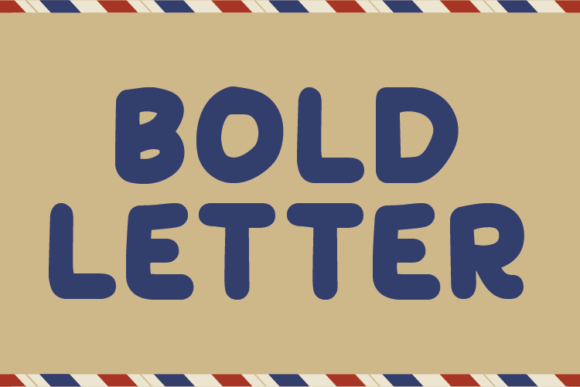
The Bold Letter Font: A Unique Gem for Creative Projects
I’ll never forget the time I was working on a project for a client who wanted a bold, eye-catching font to make their brand stand out. I scoured the internet for the perfect font, but nothing seemed quite right. That was until I stumbled upon Bold Letter, a lovely display font that has since become a staple in my design toolkit. In this article, I’ll share my experience with Bold Letter, its unique features, and how to make the most of it in your designs.
A Personal Review: What I Love About Bold Letter
So, what makes Bold Letter so special? Here are a few things that I love about this font:
• ✨ Unique character indentation: Bold Letter is made without changing a single node in each character’s indentation, giving it a distinctive and interesting look.
• ✅ Perfect for display text: This font is ideal for quotes, notes, titles, and any other display text where you want to make a statement.
• 💡 Highly versatile: Bold Letter can be used for a wide range of projects, from t-shirts and product design to posters and social media graphics.
While Bold Letter is an excellent font, it’s not without its quirks. Here are a few things to keep in mind:
• 🤔 Legibility at small sizes: As with many display fonts, Bold Letter may not be the best choice for body text or small font sizes. It’s best used for headlines or titles.
• ⚠️ Limited font family: Bold Letter is a single-font family, which means you won’t have access to multiple weights or styles.
One of the best things about Bold Letter is its support for OpenType features and glyphs. Here are a few tips for getting the most out of these features:
• 💡 Stylistic alternates: Bold Letter comes with a range of stylistic alternates that you can use to add some extra flair to your text.
• 🔍 Glyphs: The font also includes a range of glyphs that you can use to add extra visual interest to your text.
The Story Behind Bold Letter
Bold Letter was designed by a team of creatives who wanted to create a font that was both unique and versatile. The font is inspired by classic typography and modern design principles, making it perfect for a wide range of projects.
Q: What is Bold Letter?
A: Bold Letter is a display font designed for use in titles, quotes, and other display text.
Q: Does Bold Letter support OpenType features?
A: Yes, Bold Letter supports OpenType features, including stylistic alternates and glyphs.